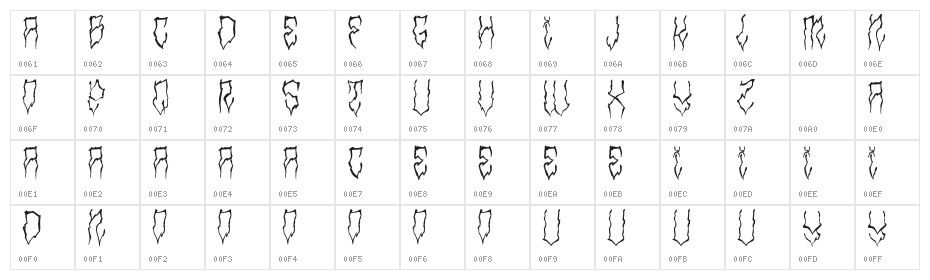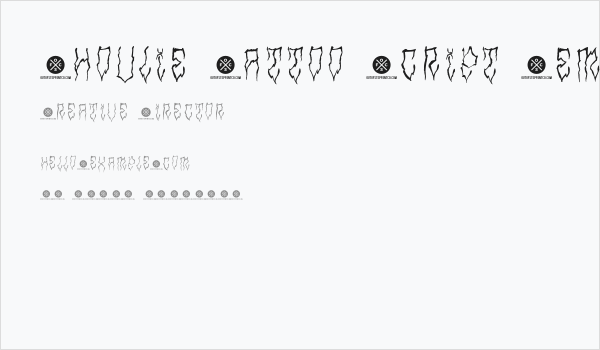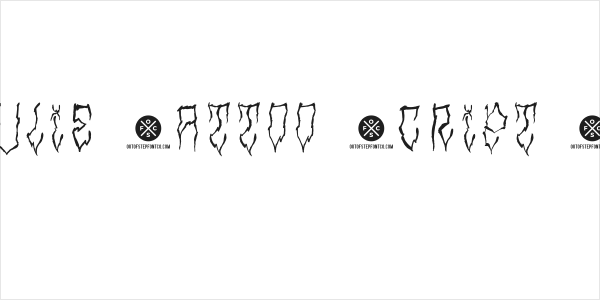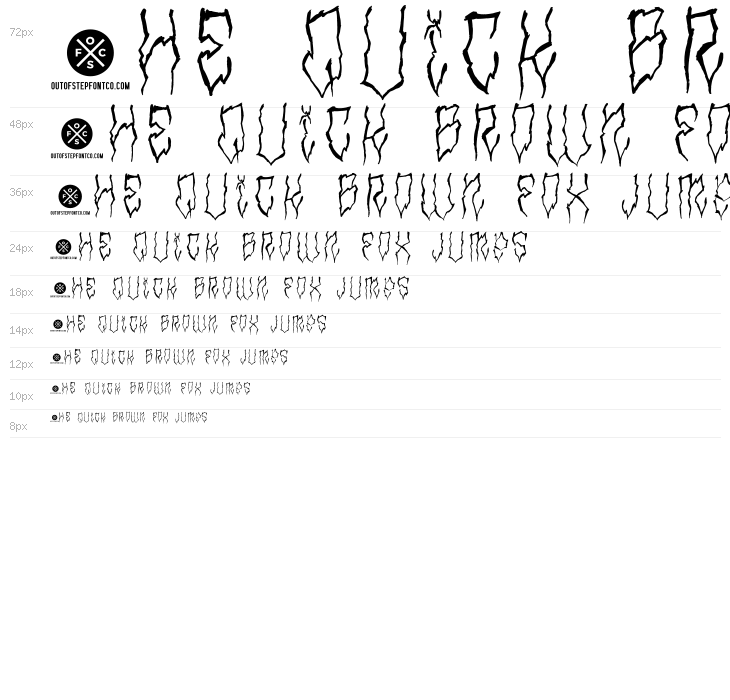
Ghoulie Tattoo Script Demo Font
Ghoulie Tattoo Script Demo Description
This font features a unique, edgy design with sharp, jagged edges that give it a distinctly eerie and gothic appearance. The characters are highly stylized, resembling twisted branches or lightning bolts, which adds to its dramatic and intense look. The uppercase letters are particularly striking, with each character maintaining a consistent height and width, while the lowercase letters mirror this style with slightly less intensity. The font's overall aesthetic is reminiscent of tattoo art, making it ideal for projects that require a bold and unconventional typeface. Its intricate design suggests a hand-drawn quality, adding to its appeal for creative and artistic uses.
| Overall Style | Gothic, Edgy, Artistic |
| Use Case | Logos, Posters, Artistic projects |
| Proposed Projects | Ideal for tattoo designs, horror-themed posters, album covers, and edgy branding projects. |